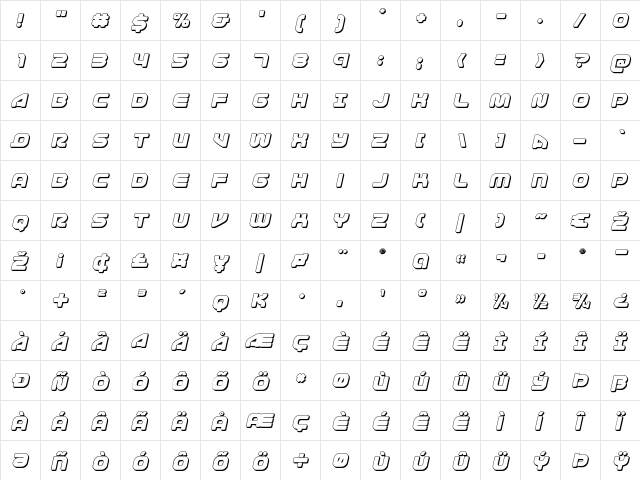
1st Enterprises 3D Italic Italic
Italic ·  Daniel Zadorozny ·
DesignerDaniel Zadorozny
Design Context for 1st Enterprises 3D Italic Typeface
1st Enterprises 3D Italic is a composed and adaptable typeface that performs quietly and consistently across a wide range of design contexts. The dynamic lean of this cut emphasises speed and emphasis in any layout.
Pro Tip: Try 1st Enterprises 3D Italic for annotation and caption copy alongside an upright companion — the contrast in angle creates a dynamic but ordered typographic system.